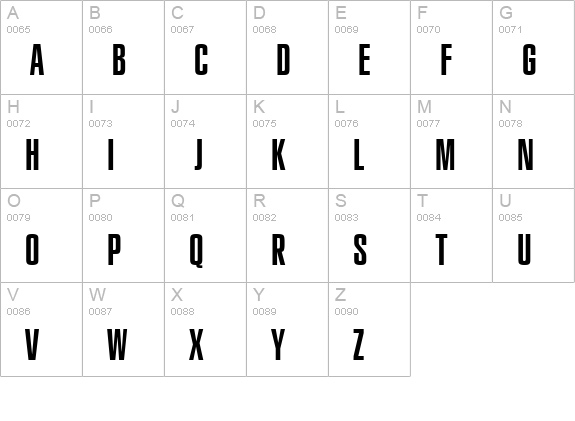
a_RubricaXtCn Font Details
Introducing the captivating and versatile a_RubricaXtCn font - a modern and elegant typeface that exudes sophistication and charm. With its sleek and stylish design, this font is perfect for a wide range of design projects, from branding to editorial work. The clean lines and subtle curves of a_RubricaXtCn make it a timeless choice for any creative endeavor. What's even better is that a_RubricaXtCn is available for free download at FontsMarket.com. This means you can easily access this stunning font and elevate your designs without any cost. Don't miss out on the opportunity to add a_RubricaXtCn to your font collection today and bring a touch of elegance to your projects.